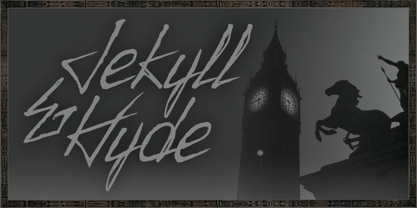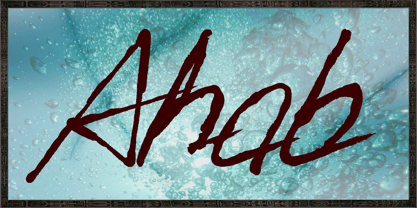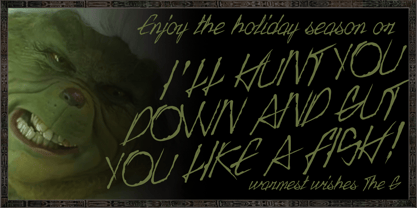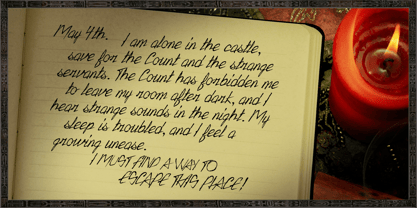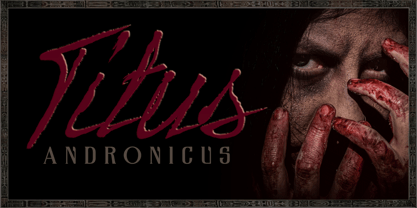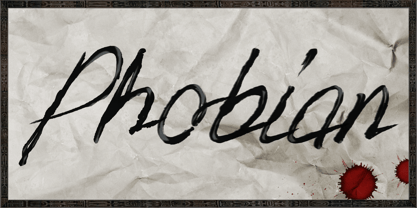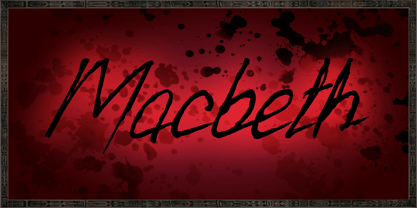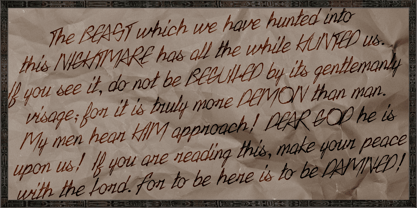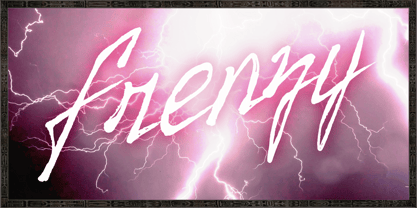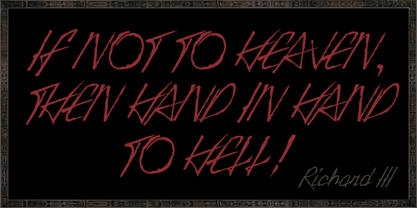
Phobian
The Phobian Font Family was designed by Michael Kovacevich and published by MKGD. Phobian contains 1 styles. More about this family
Phobian is my second attempt at designing a handwritten typeface. It differs from my first (Zidler) in that it was designed to be much more erratic; conveying a sense of obsession, rage, or panic.
The glyphs for Phobian are shaped, in part, as a script face would be. However, a cursive form is also apperant in that the letterforms are not always linked.
The combining of those conflicting styles, along with the addition of sharp, angular, oblique strokes, convey the sort of handwriting that someone of a fevered mind might scrawl.
At it’s core, Phobian is a font that screams raw emotion.
My name is Michael Kovacevich and I run MKGD Font Foundry. I’ve been a professional graphic designer for the better part of three decades. I’ve freelanced, worked in various studios, and in the art departments of garment industries. During that time I, like most designers, have dealt with type on a daily basis. I’ve set, kerned, tracked, bastardized and hand lettered type of all kinds over those many years. These days however, I’ve decided to bring my experience to bear on the designing of typefaces. I like to think of it as distilling my years of experience into something that anyone with a creative interest could utilize. During the course of my efforts, I hope people will find my work as interesting for them to use, as it is for me to produce.